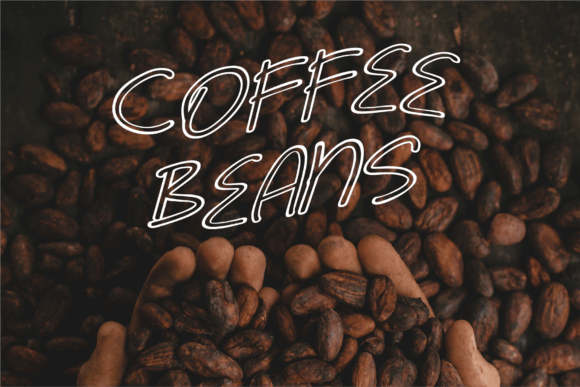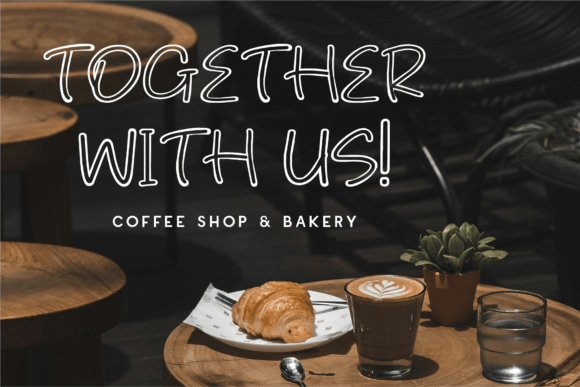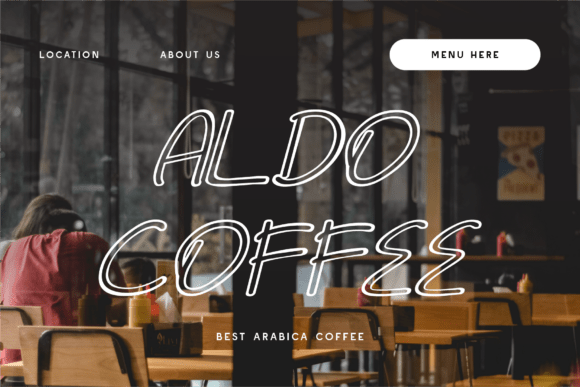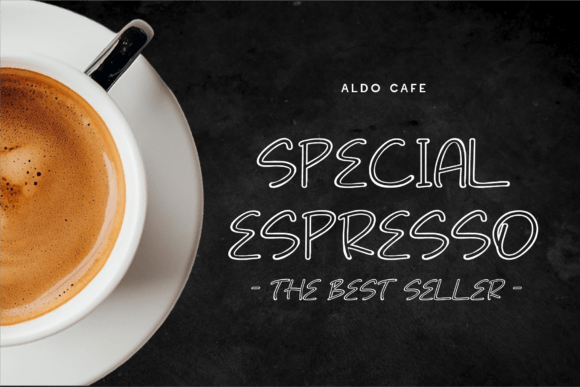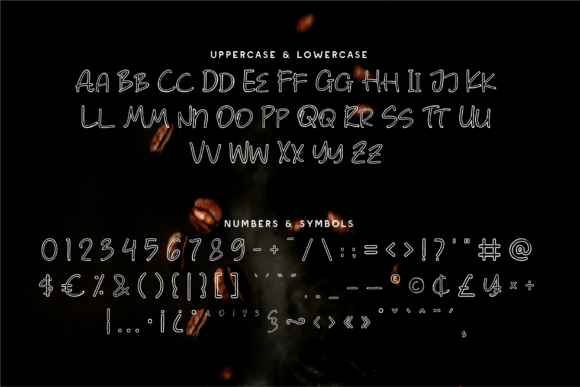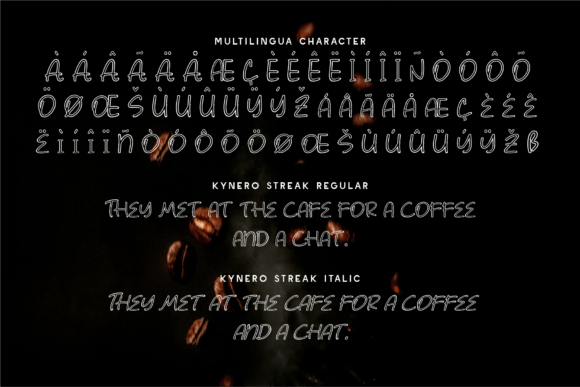
Introduction to Kynero Streak Font
Have you ever found yourself stuck in a creative rut, desperately searching for that one design element to elevate your project to the next level? For designers, this moment is all too familiar. But what if I told you there’s a game-changing font that can add an instant boost of energy and modern edge to your work? Welcome to the world of Kynero Streak Font, a stunning brush outline display font that’s about to revolutionize the way you approach your creative projects.
With its bold, outlined strokes and handcrafted brush texture, Kynero Streak Font is the perfect design resource for anyone looking to add a touch of high-quality sophistication to their work. Whether you’re working on a commercial project or a personal passion piece, this font is sure to make a lasting impression.
Key Features of Kynero Streak Font
- High-quality, unique font design perfect for creative projects, including posters, flyers, and social media graphics.
- Unique characteristics: bold, modern, and futuristic style with a touch of neon flair, making it perfect for highlighting key messages or creating eye-catching headlines.
Honest Review: Kynero Streak Font
- ✨ The font’s high quality and crisp design make it suitable for various applications, from digital to print.
- ✨ The transparent background allows for seamless integration with different backgrounds and designs.
- ✨ The font’s sleek and modern design is perfect for creative projects that require a touch of sophistication.
- ⚠️ The font may not be suitable for projects that require a more traditional or conservative typography.
- ⚠️ Some users may find the font’s boldness overwhelming, especially when used in large quantities.
Overall, I’m impressed with the Kynero Streak Font. It’s a great design resource that can elevate any creative project. While it may have some limitations, it’s definitely worth considering for your next design endeavor.
Tips for Getting the Most Out of Kynero Streak Font
To get the most out of the Kynero Streak Font, experiment with different font sizes, colors, and combinations. Use the font in conjunction with other design elements to create a unique and eye-catching design.
The Kynero Streak Font is perfect for use in creative projects such as logos, social media graphics, presentations, documents, and more. Its high-quality design and transparent background make it a versatile and customizable font for any design need.